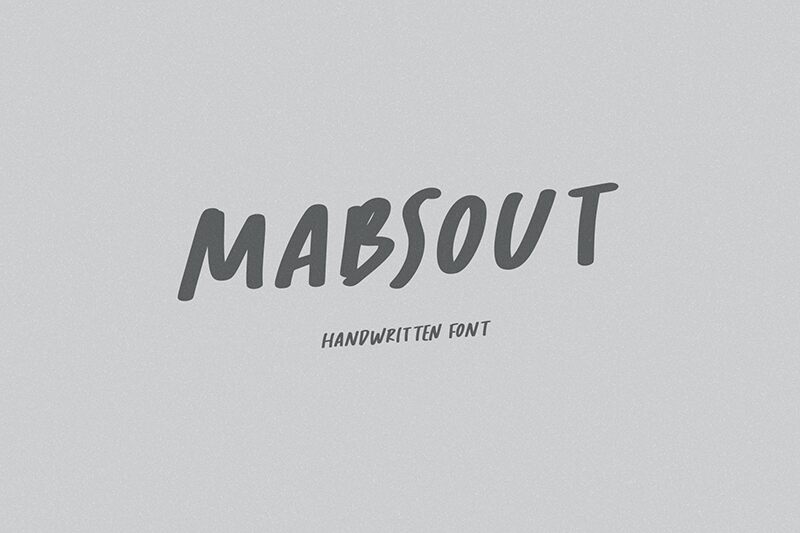
Mabsout font by Zuzulgo Studio is a handwritten font with a personal, expressive, and contemporary feel. It gives typography both a casual vibe and an artistic flair that can be noticed in each element’s form. Artists looking for the perfect tool to deliver fantastic creations can easily obtain Mabsout.
Use it for album art work, magazine covers or headings, flyers and business cards designs. In addition to posters created with all sorts of themes from gaming to environment, books cover design, movie title design and website page titles design use this free handwritten font!
Mabsout